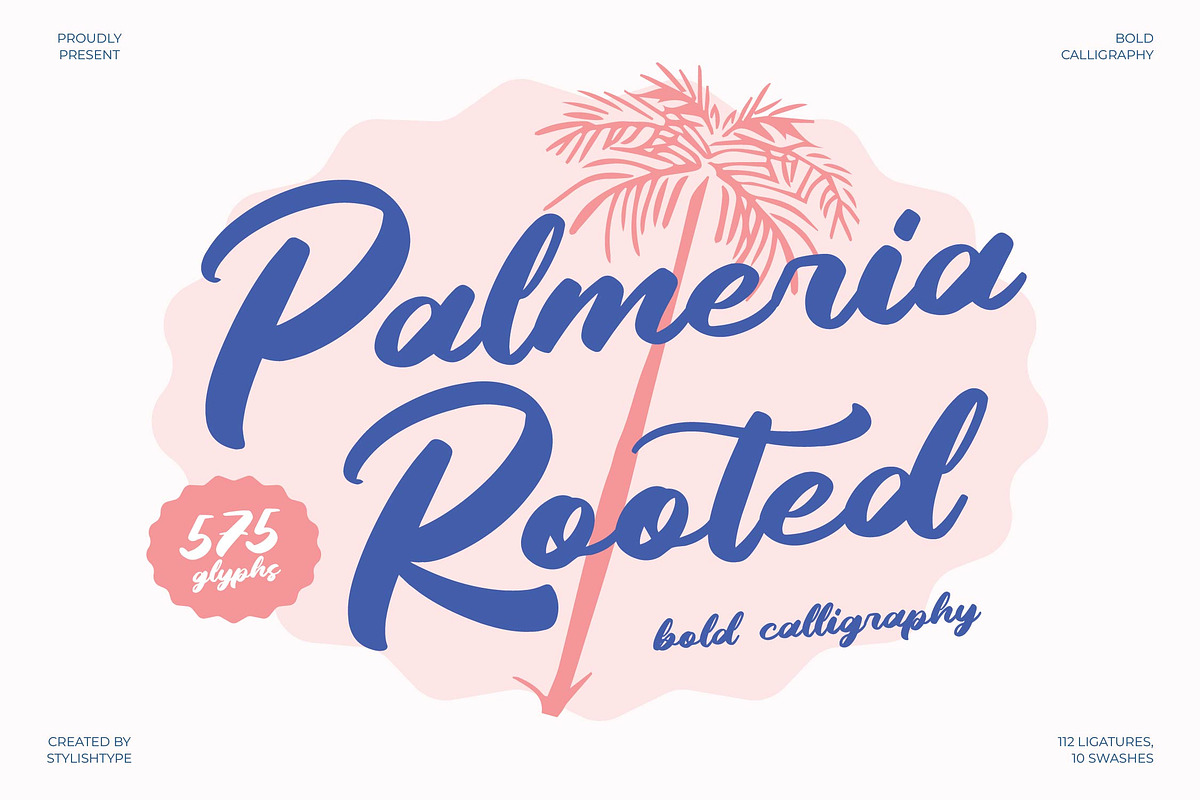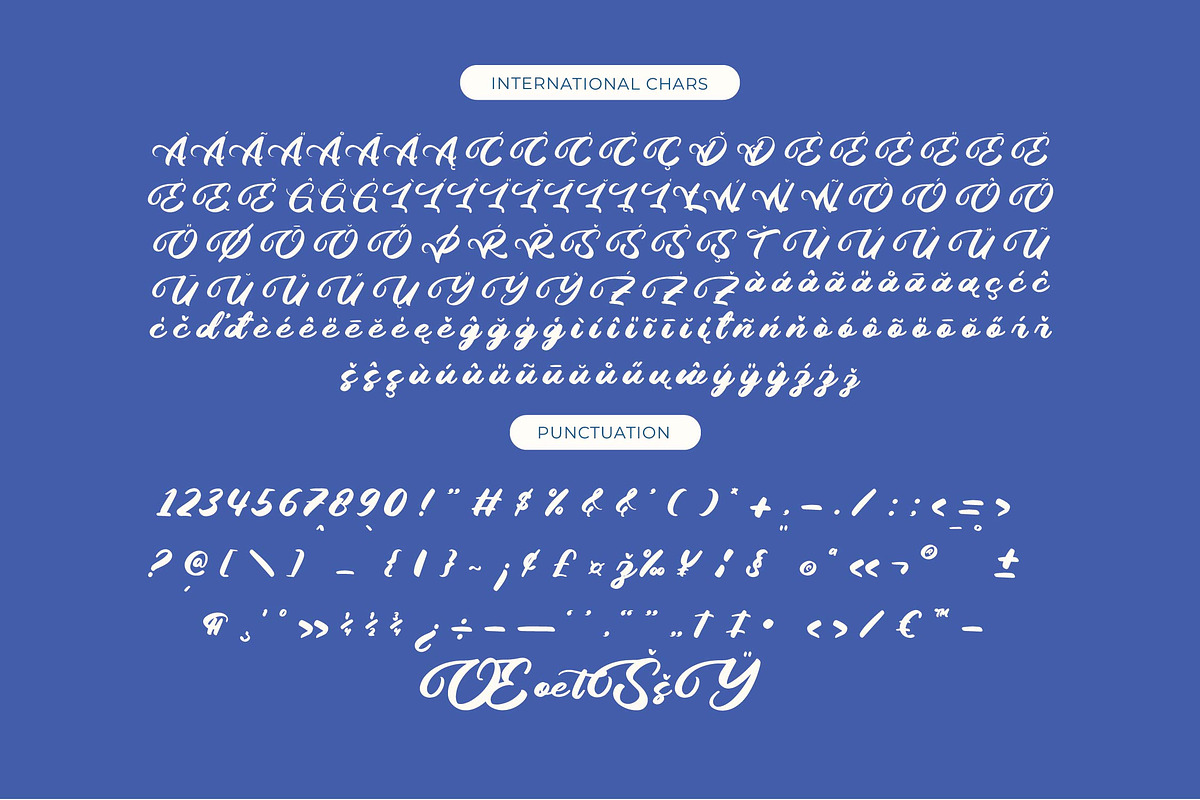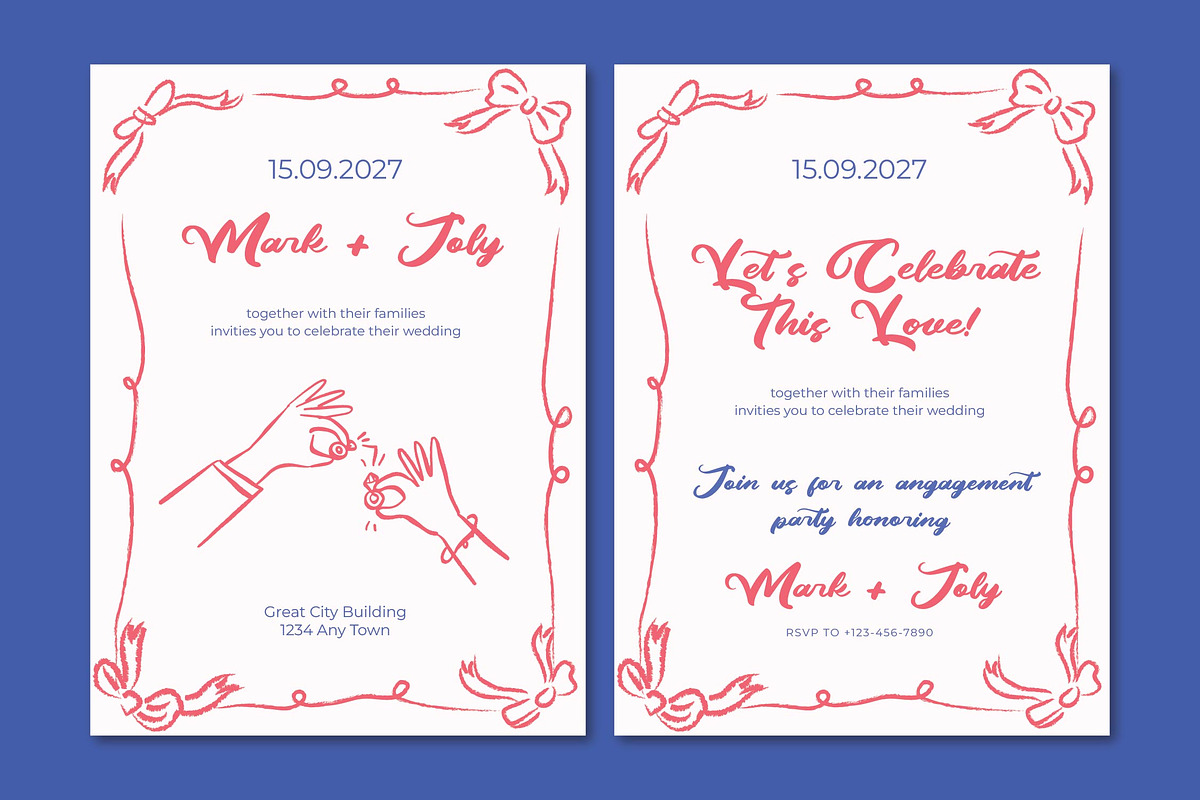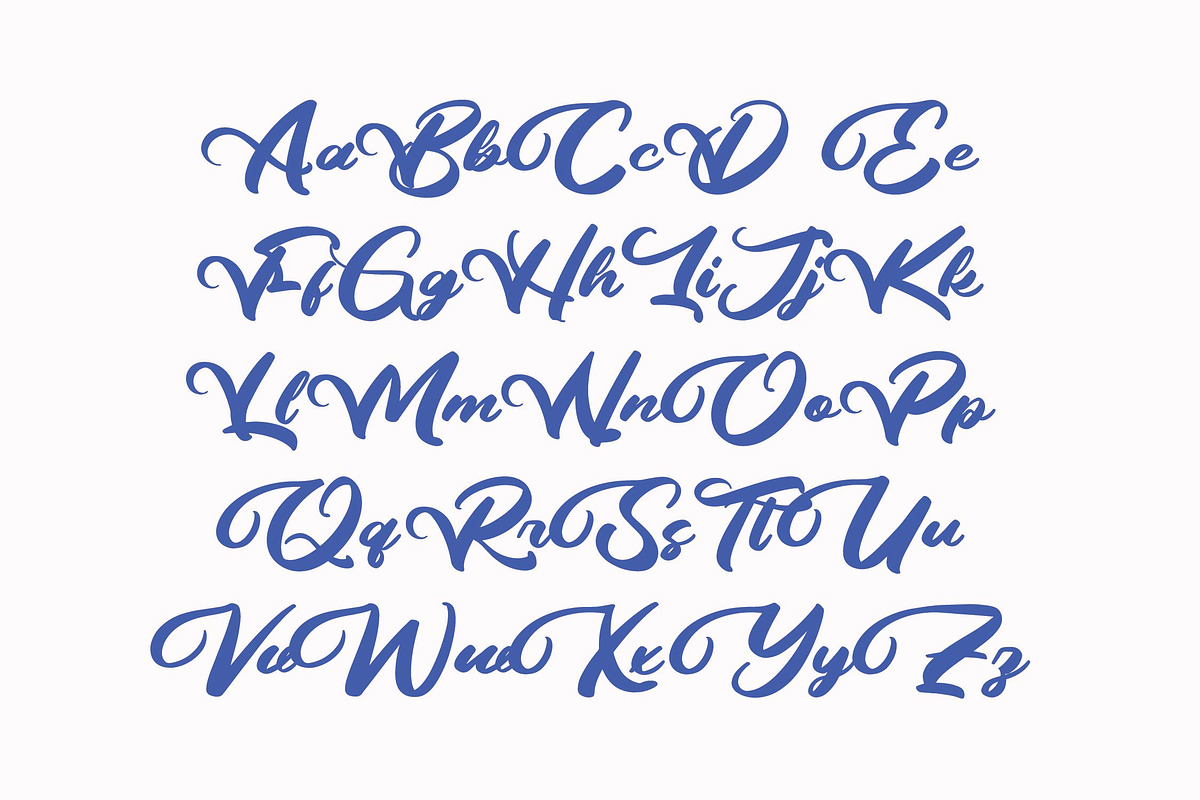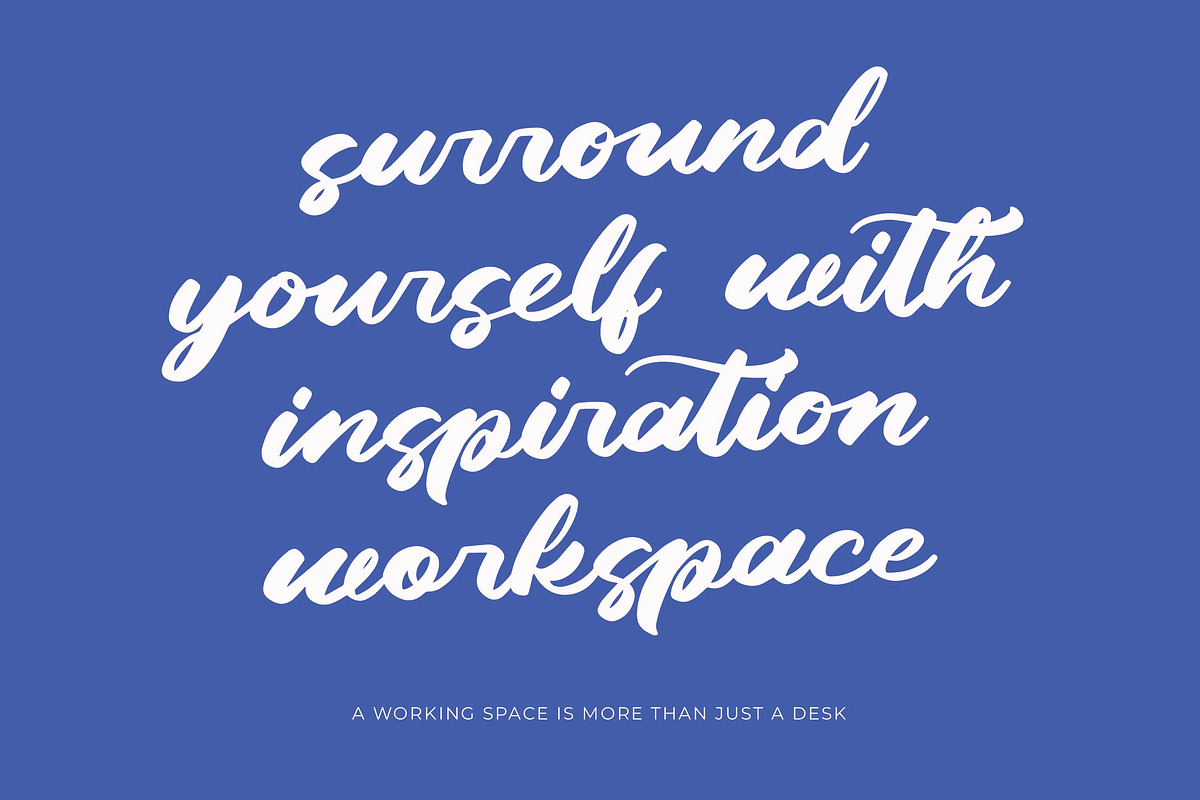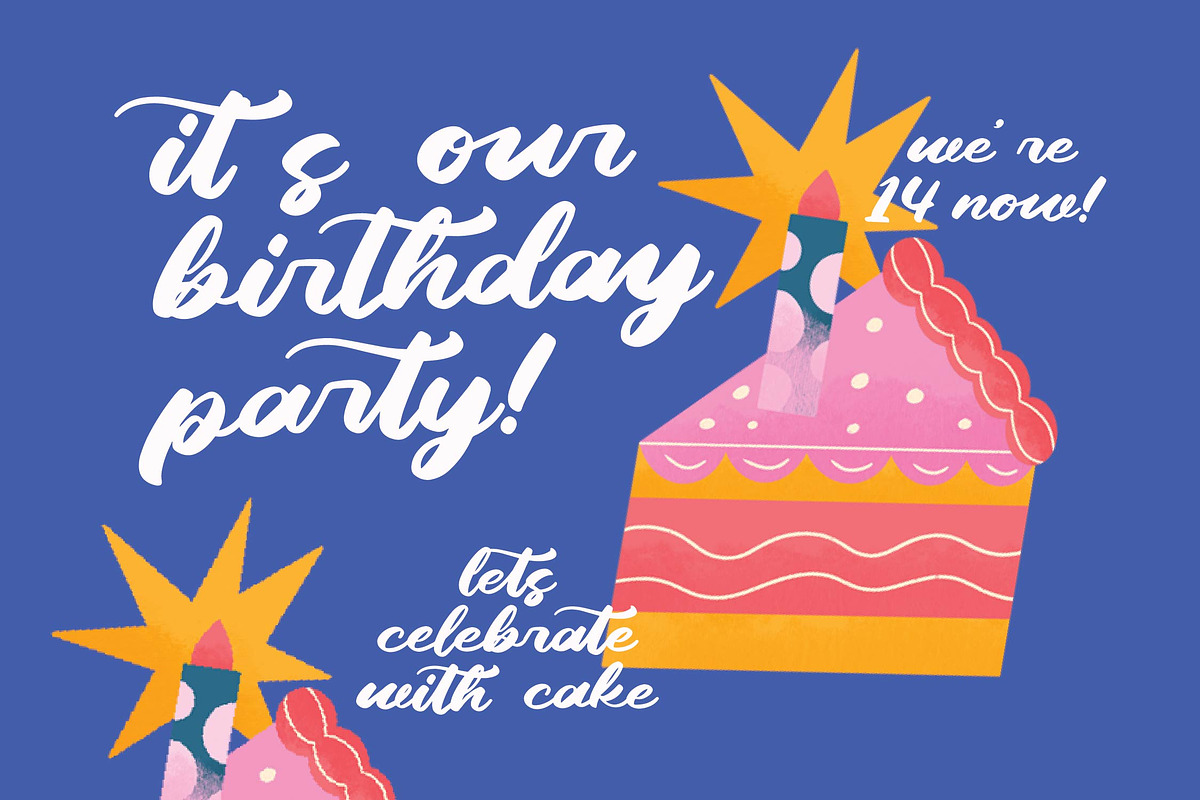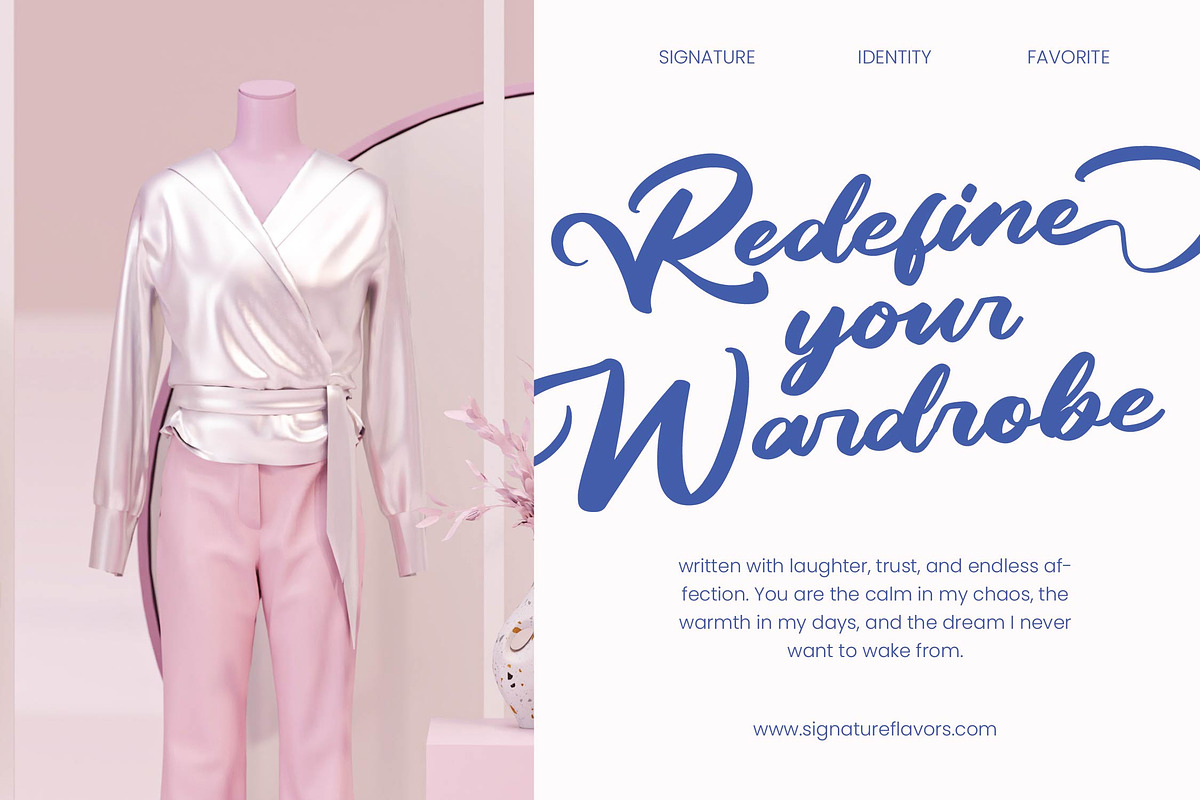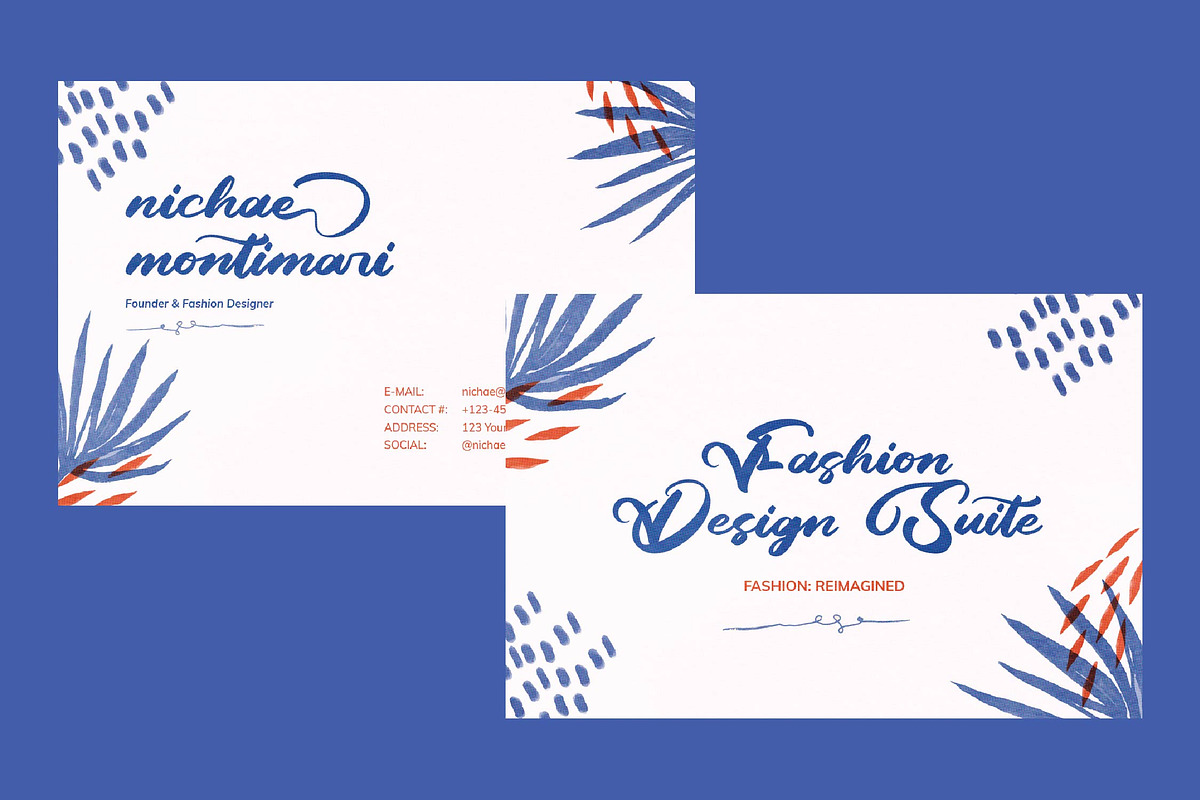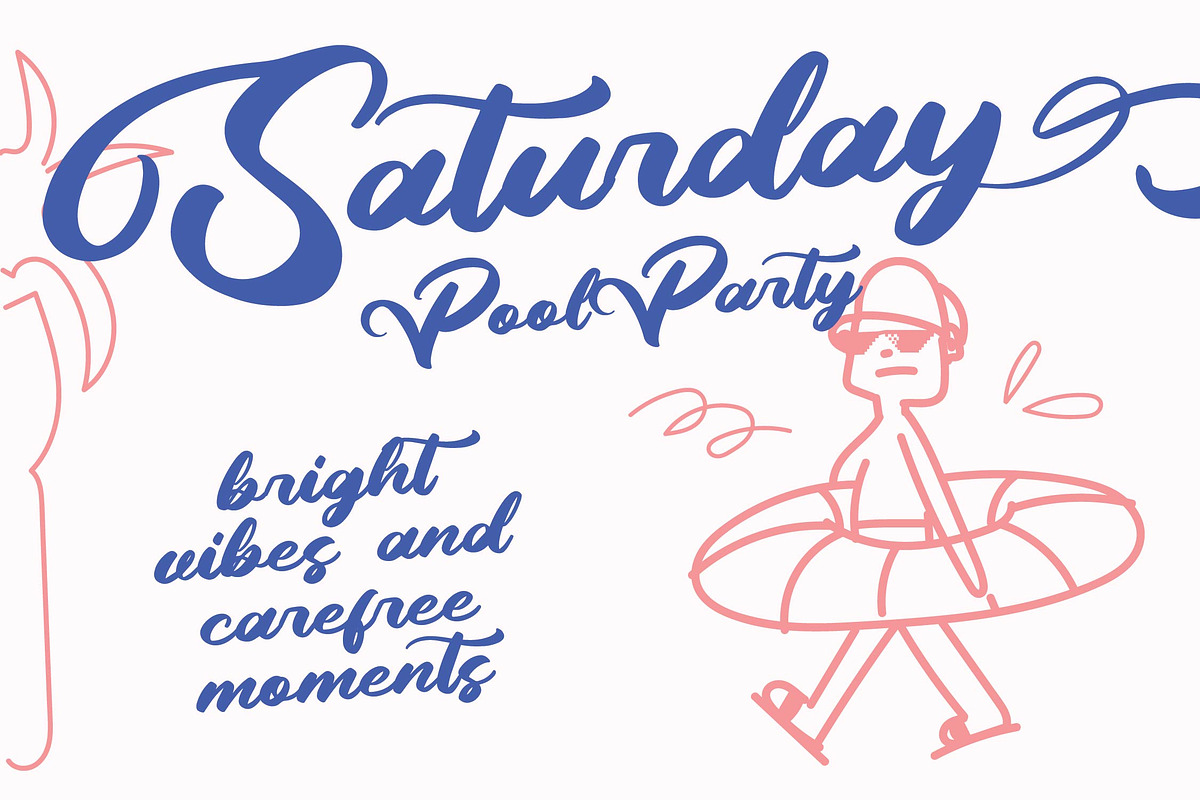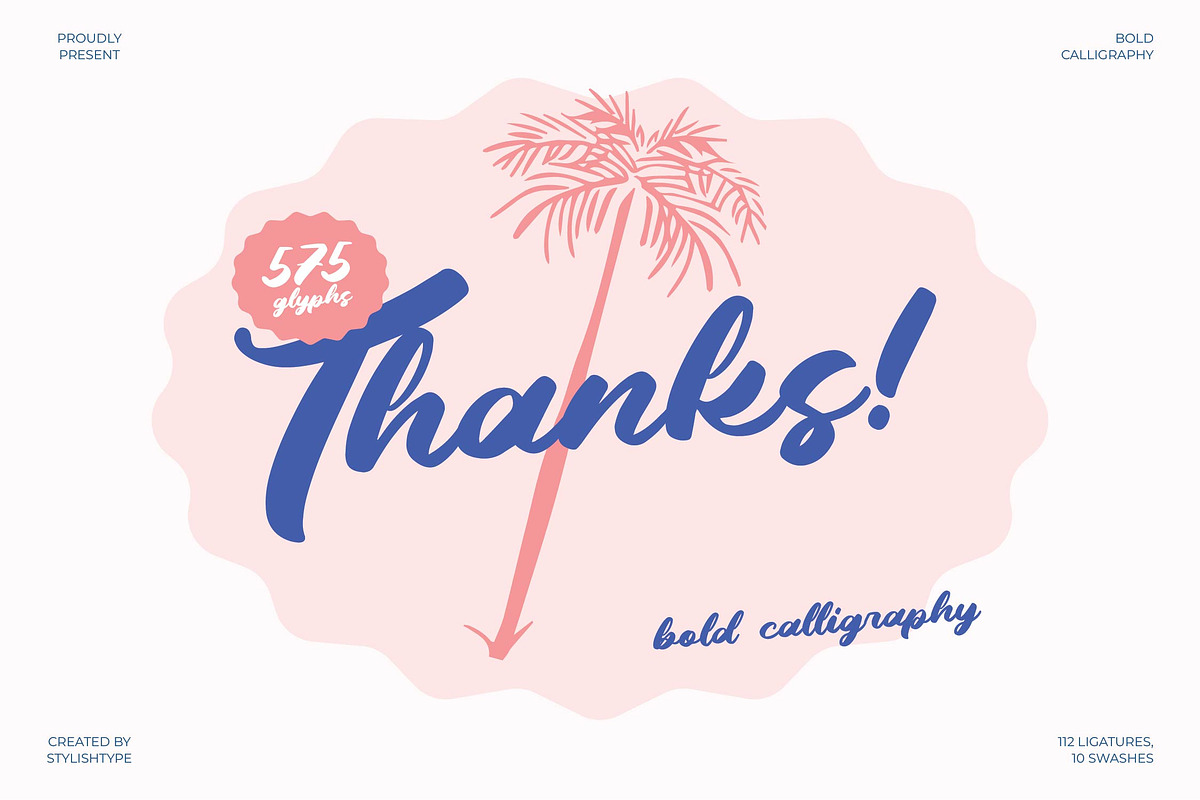
Palmeria Rooted Bold Calligraphy
Palmeria Rooted is a bold calligraphy script font infused with tropical charm, smooth brush strokes, and a warm handwritten energy. Designed to evoke vacation vibes, sun-soaked beaches, and playful summer moments, this typeface is perfect for beach branding, café menus, packaging, travel posters, social media quotes, apparel, and expressive lifestyle logos. Its fluid motion and confident curves create a friendly, uplifting, and refreshing aesthetic.
With 112 ligatures, 10 swashes, and a massive 575 glyphs, Palmeria Rooted gives designers extensive freedom to craft custom lettering, artistic wordmarks, dynamic title compositions, and expressive signature-style designs. Its bold brush texture, tropical personality, and versatile stylistic features make it an ideal choice for fun, creative, and feel-good design projects.